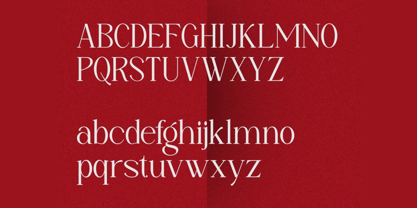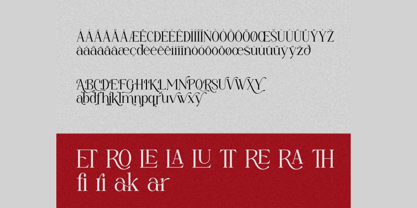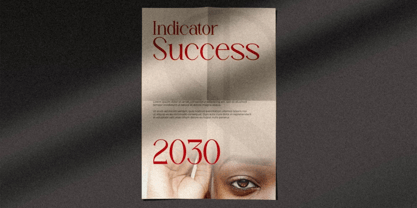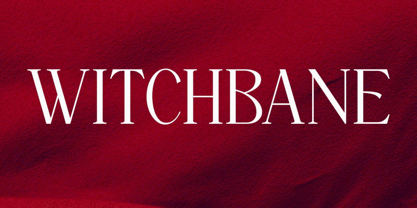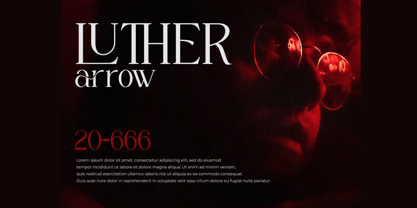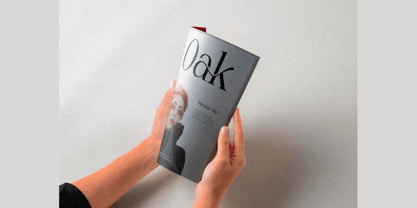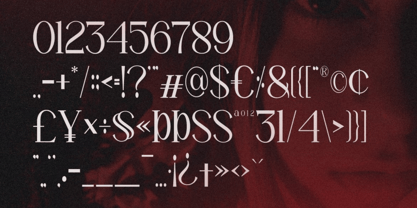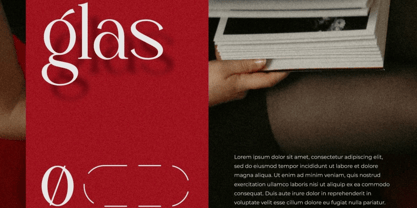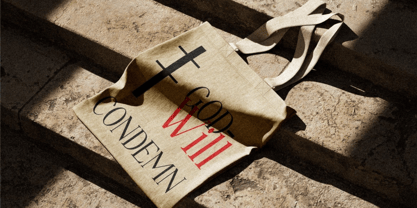
Wyrmlane
by Hasnat Studio
The Wyrmlane Font Family was designed by Hasnat Khan and published by Hasnat Studio. Wyrmlane contains 1 styles.
Wyrmlane is a powerful and elegant serif display font that evokes the essence of ancient tradition and mystical charm. Designed to command attention, Wyrmlane blends classic serif elements with subtle vintage undertones, making it perfect for dramatic, fantasy-inspired, and historically themed design work.
Its bold character, unique alternates, and refined ligatures give this typeface a distinctive edge—ideal for projects that need to communicate strength, mysticism, and timeless sophistication. Whether you’re working on fantasy book titles, gothic branding, game logos, historical campaigns, or atmospheric movie posters, Wyrmlane brings an intense visual presence that resonates.
Key Features:
• Bold Serif Style: A dramatic serif with strong verticals and sharp details for visual impact.
• Uppercase & Lowercase Letters: A full character set for stylistic range and readability.
• Alternates & Ligatures: Decorative features to enhance typographic richness and uniqueness.
• Numerals & Punctuation: Essential glyphs for complete and professional design composition.
• Vintage-Fantasy Vibe: Infused with a mystic tone suitable for gothic or fantasy genres.
Perfect For:
• Branding & Identity: Games, gothic-themed products, vintage beverages, and entertainment brands.
• Book & Movie Titles: Especially suited for fantasy, horror, mythology, and historical fiction.
• Packaging Design: Perfect for products needing a strong, traditional, or dramatic look.
• Logo Design: Creates bold, memorable brand marks with a timeless edge.
• Posters & Campaigns: Ideal for promotional materials that require attention-grabbing visuals.
Harness the bold elegance of Wyrmlane—a classic serif font that bridges tradition and fantasy with a commanding presence. Perfect for designers who seek to create lasting impressions through bold and mystical typography.